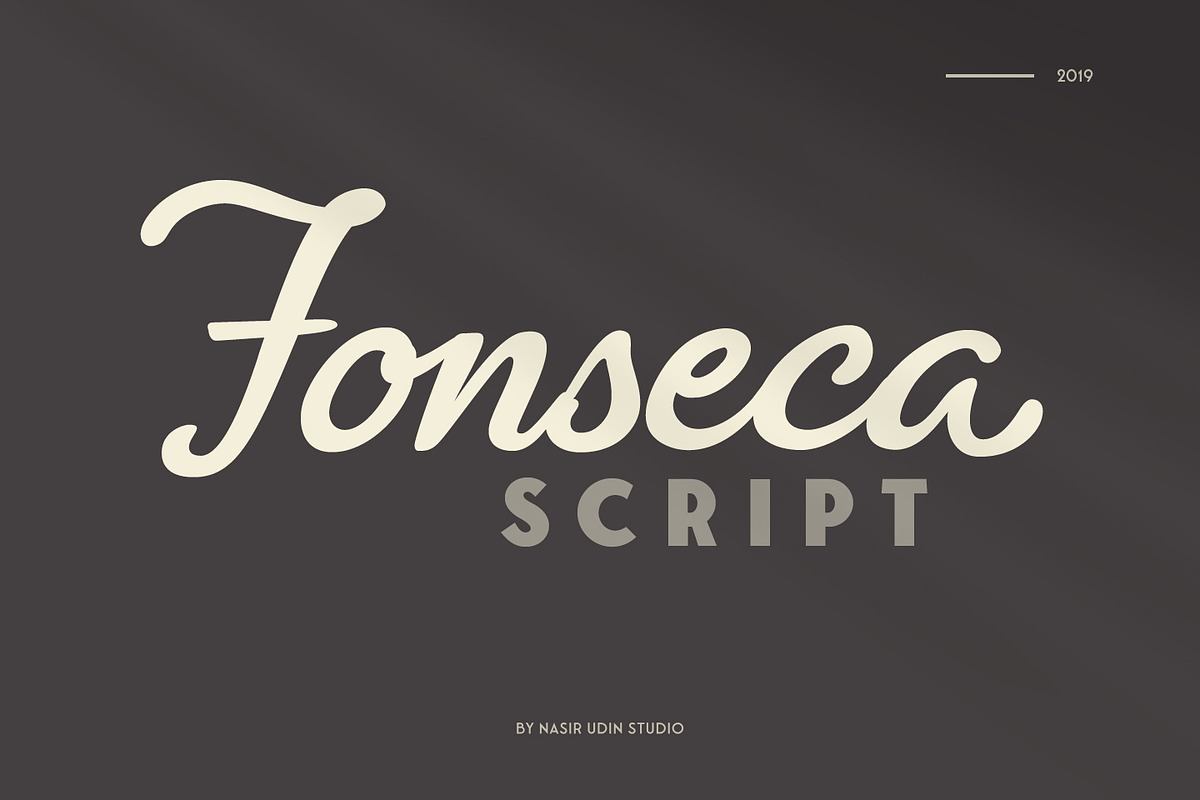
The Fonseca Script Font Free Download is an elegant and flowing script typeface designed to bring a personal, handwritten touch to your designs. Featuring smooth curves and graceful letterforms, this font is perfect for creating high-end logos, invitations, branding, social media graphics, and other creative projects that require a sophisticated, artistic feel. Whether you're designing for a wedding, a boutique, or a modern brand, Fonseca Script adds a unique and refined touch to your work.
Fonseca Script Font Free Download is ideal for designers looking to create elegant, handwritten typography with a modern twist. Perfect for upscale branding, custom invitations, and creative campaigns, this font will elevate your designs with its stylish, flowing style. Download it today and infuse your projects with the timeless beauty of Fonseca Script!